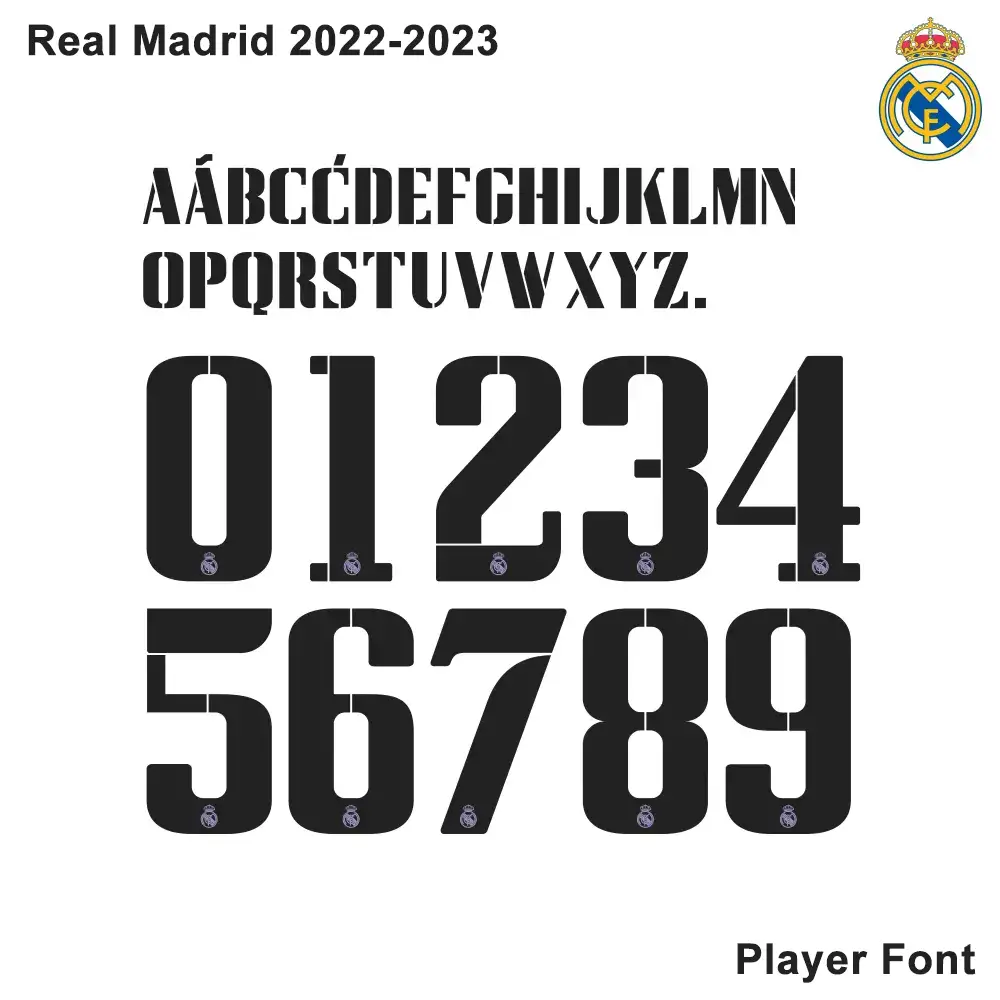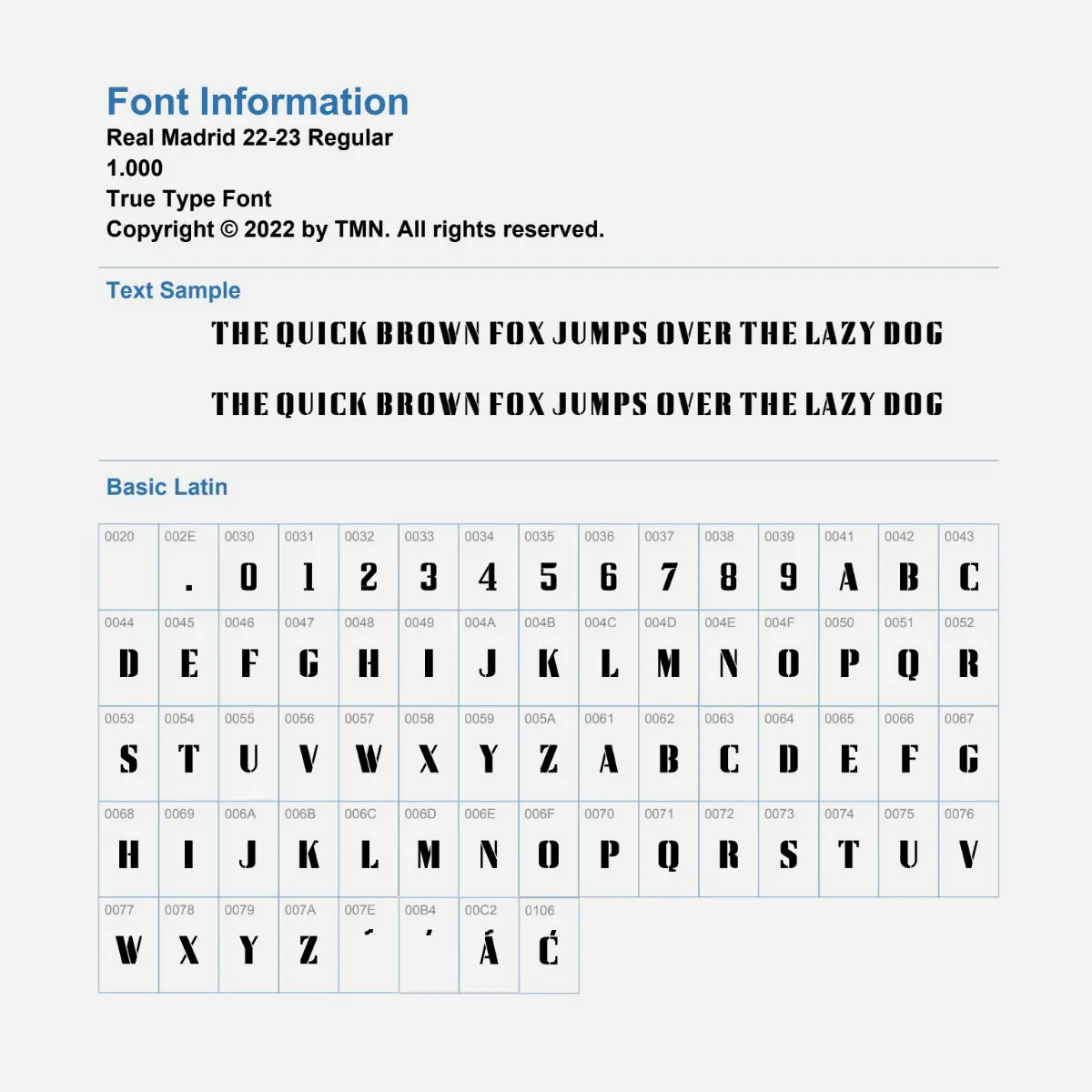
Real Madrid 2022-23 Kit Font
The Real Madrid 22-23 kit typeface is closely inspired by the iconic typeface of 20 years ago when Real Madrid won the Champions League.